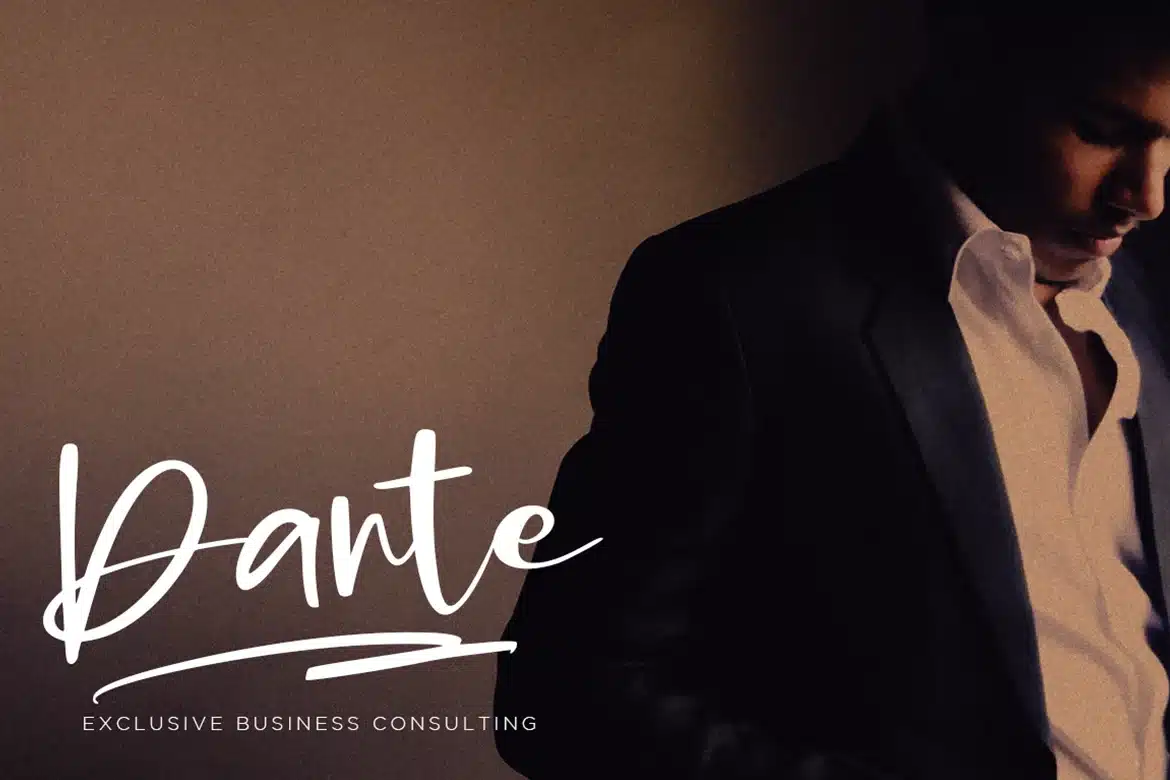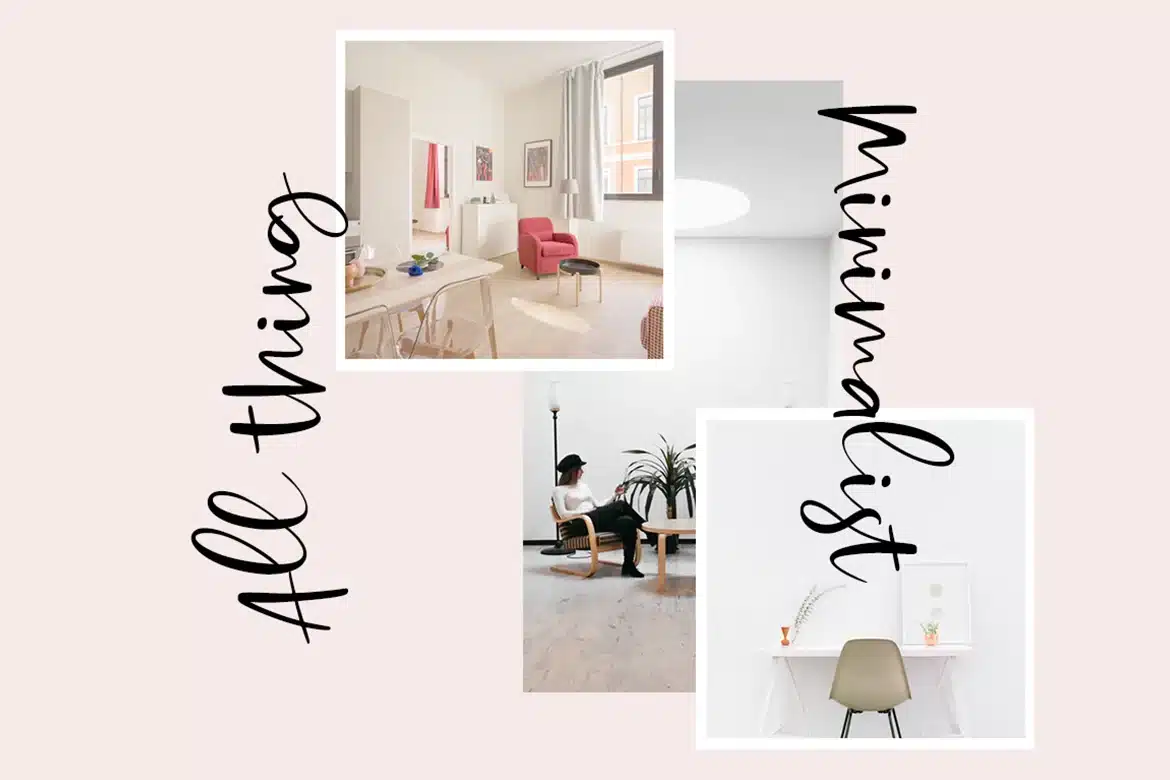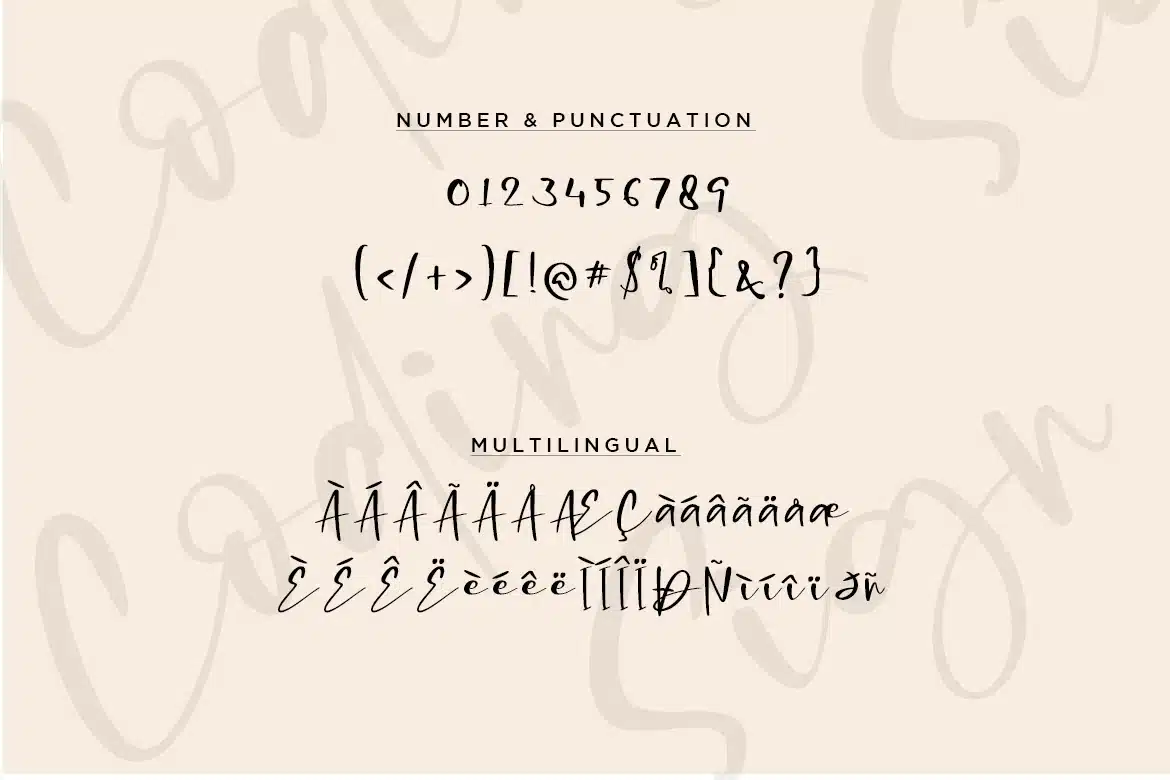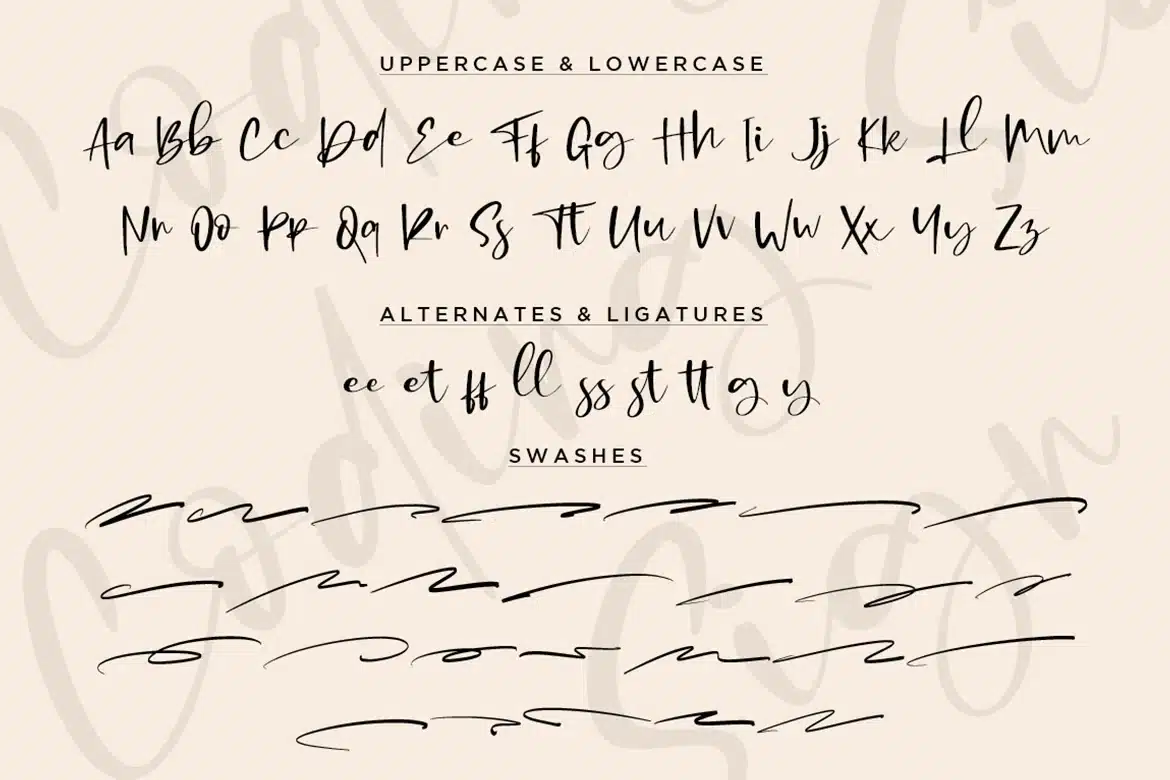
Coding Sign Font
I just launch new collection script font Coding Sign
Coding Sign is an elegant bounce script with natural texture and similar with hand written. I design it with real write my hand, I really hope you will enjoy it so much when using this font.
I love using this one with layer masks in Photoshop, really look natural written. Coding Sign Script includes over couple ligatures to make everything look totally hand-done. Also with swashes font for complete your design really make your need. :) You just need install the Coding Sign Swashes and type A-Z or a-z or 0-9 and get the natural swashes font.
Ligatures in script
Numbers + Punctuation
Non-English support
Swashes